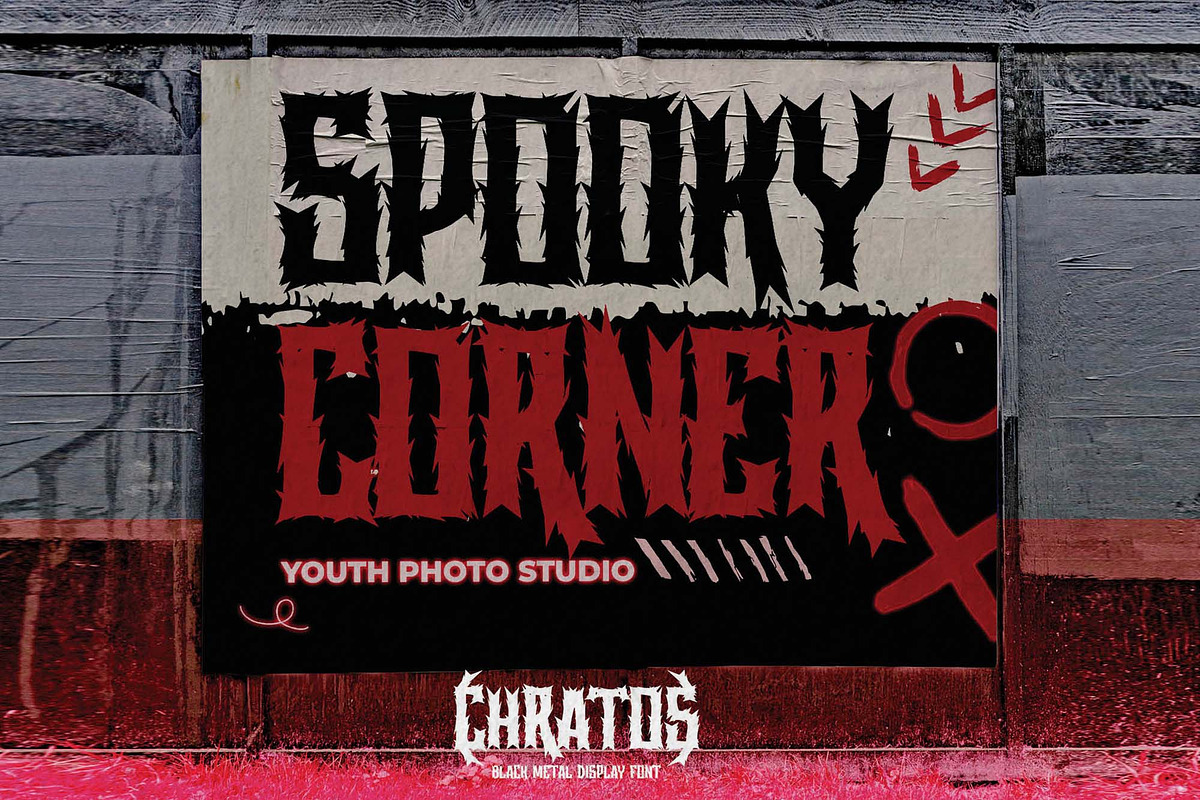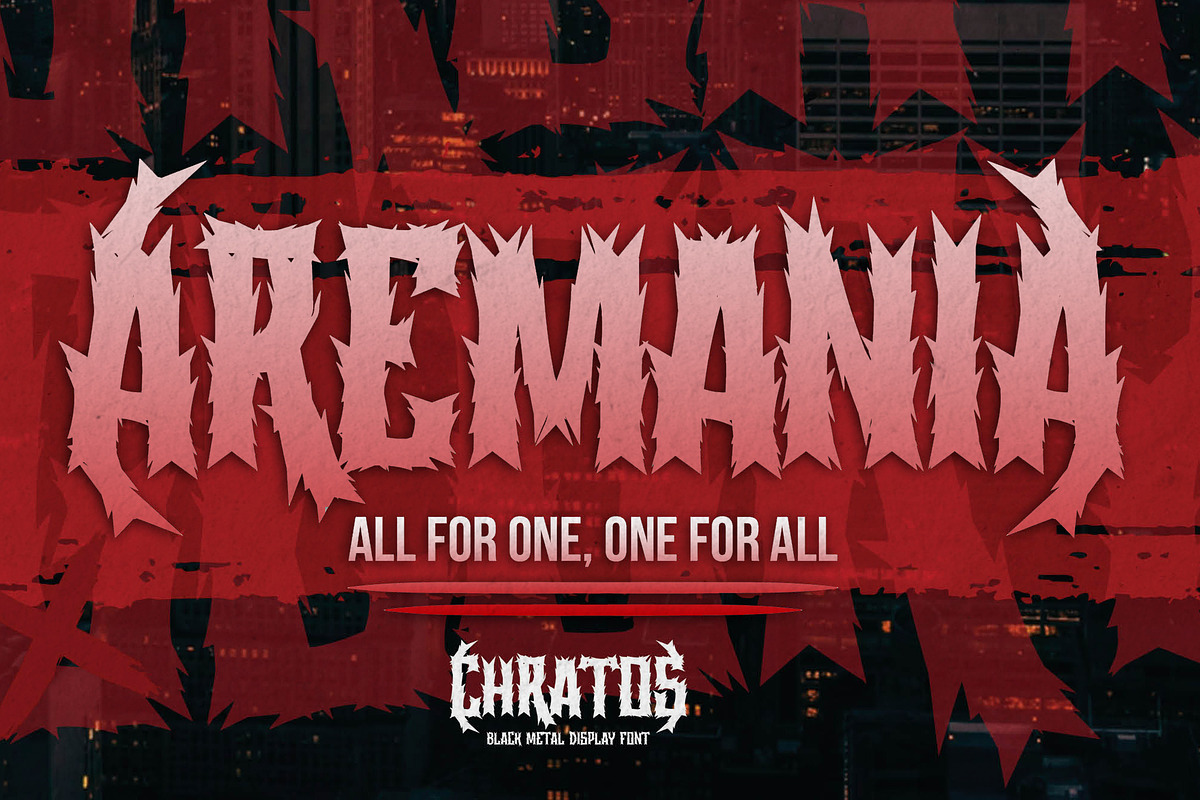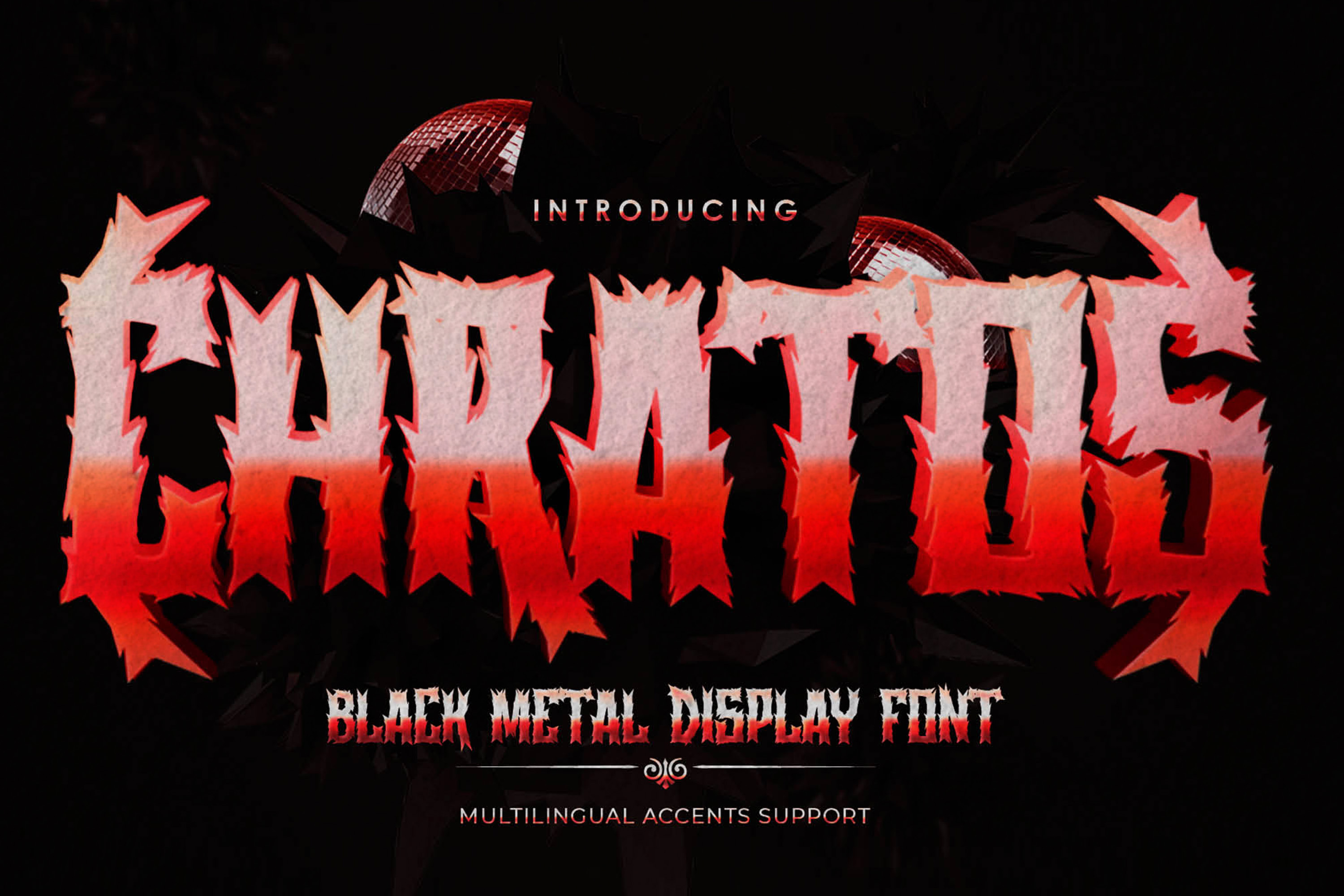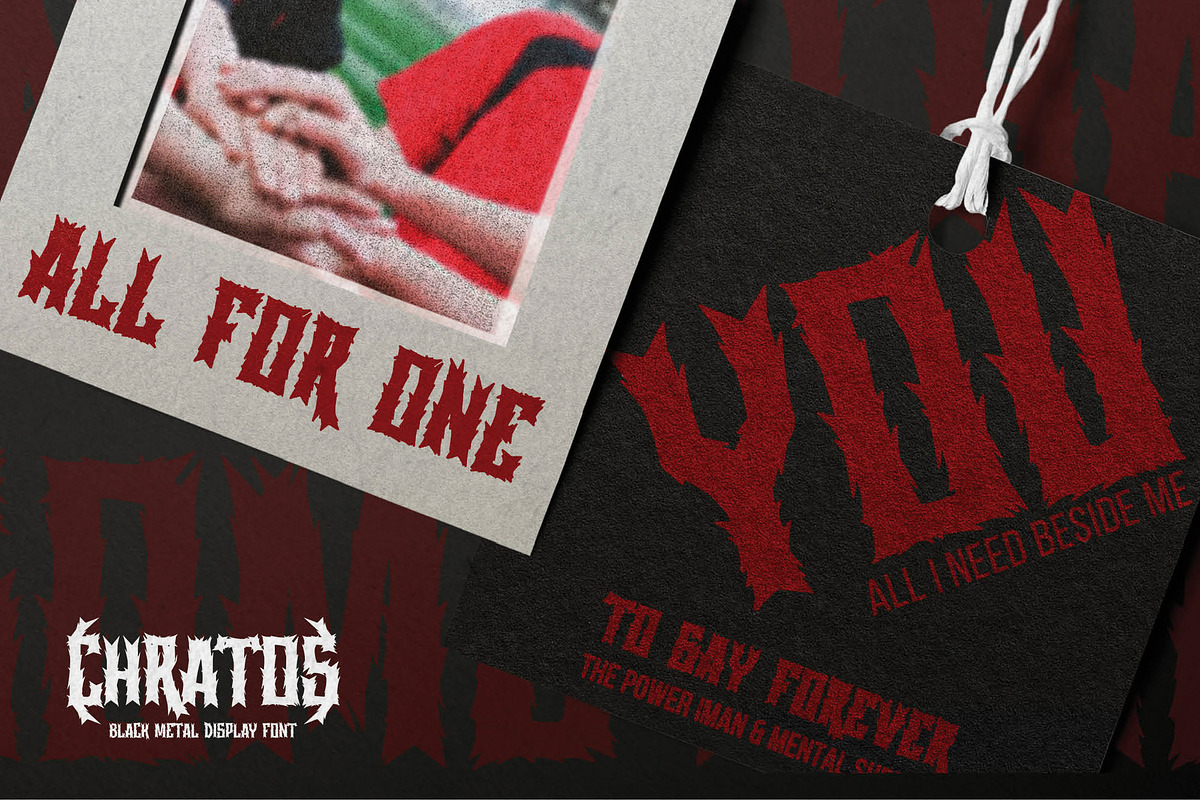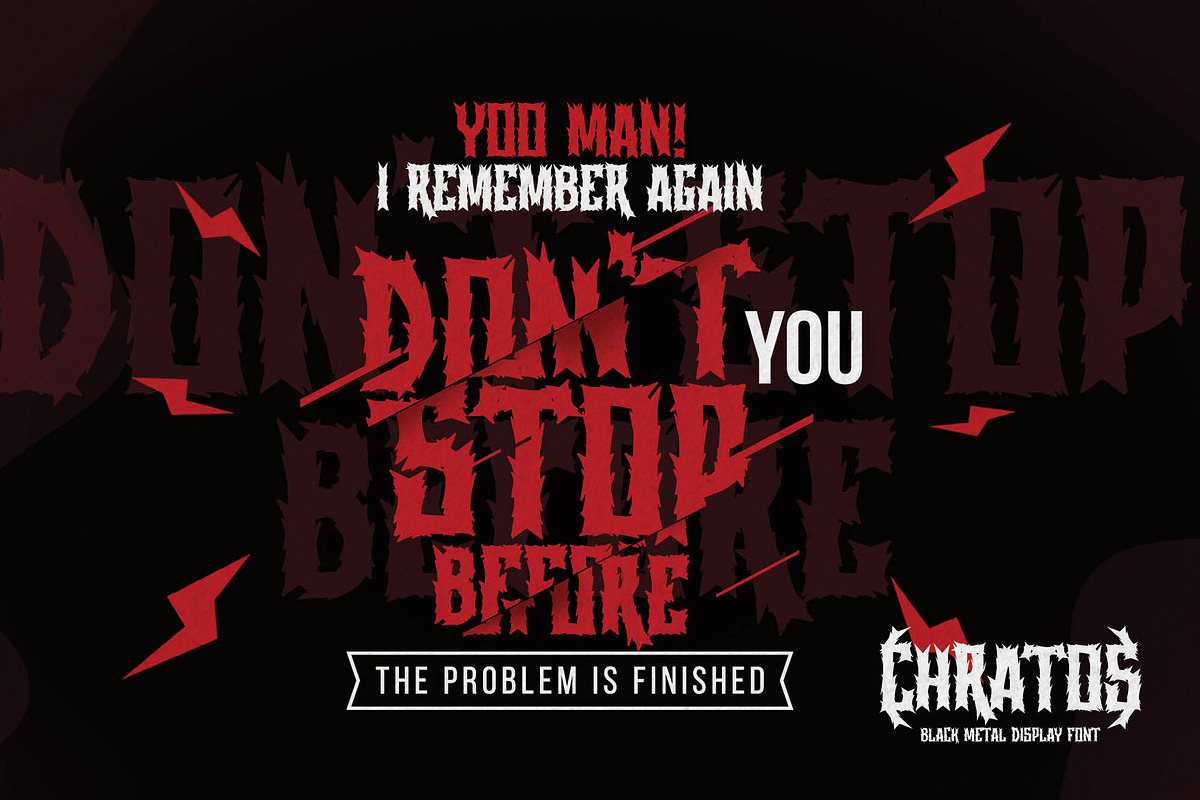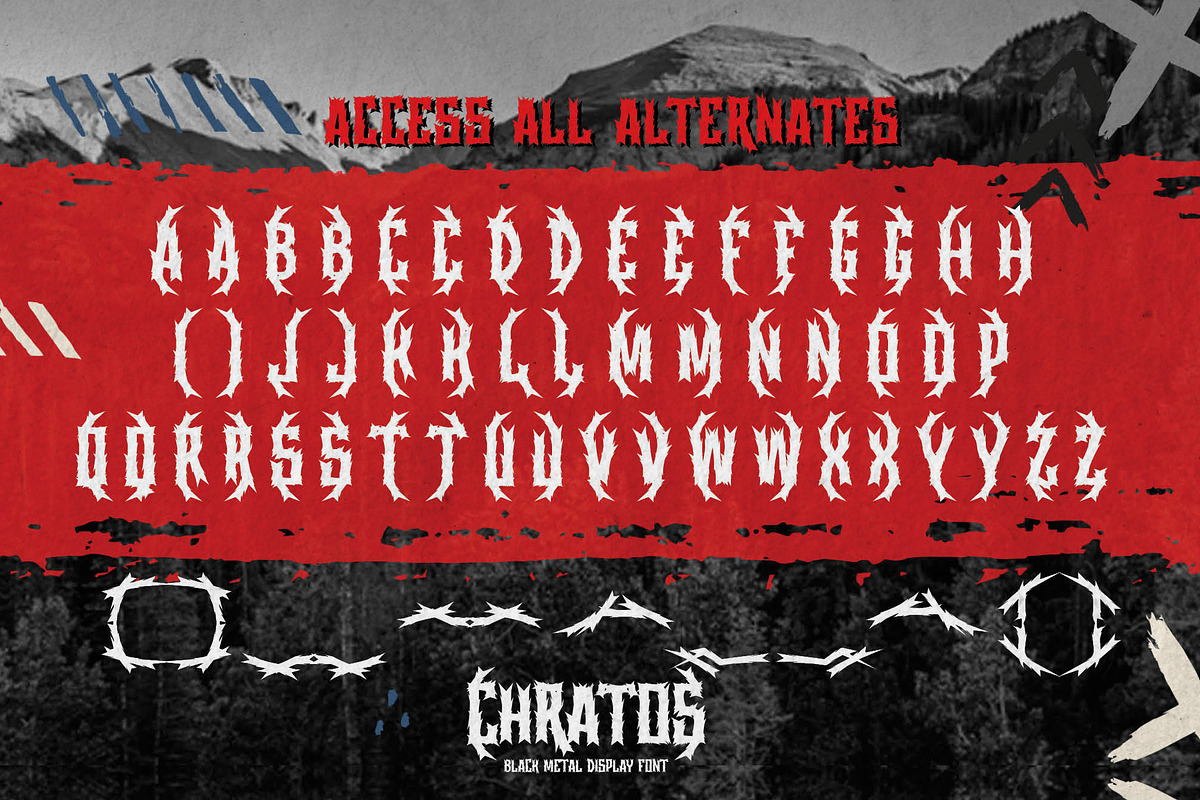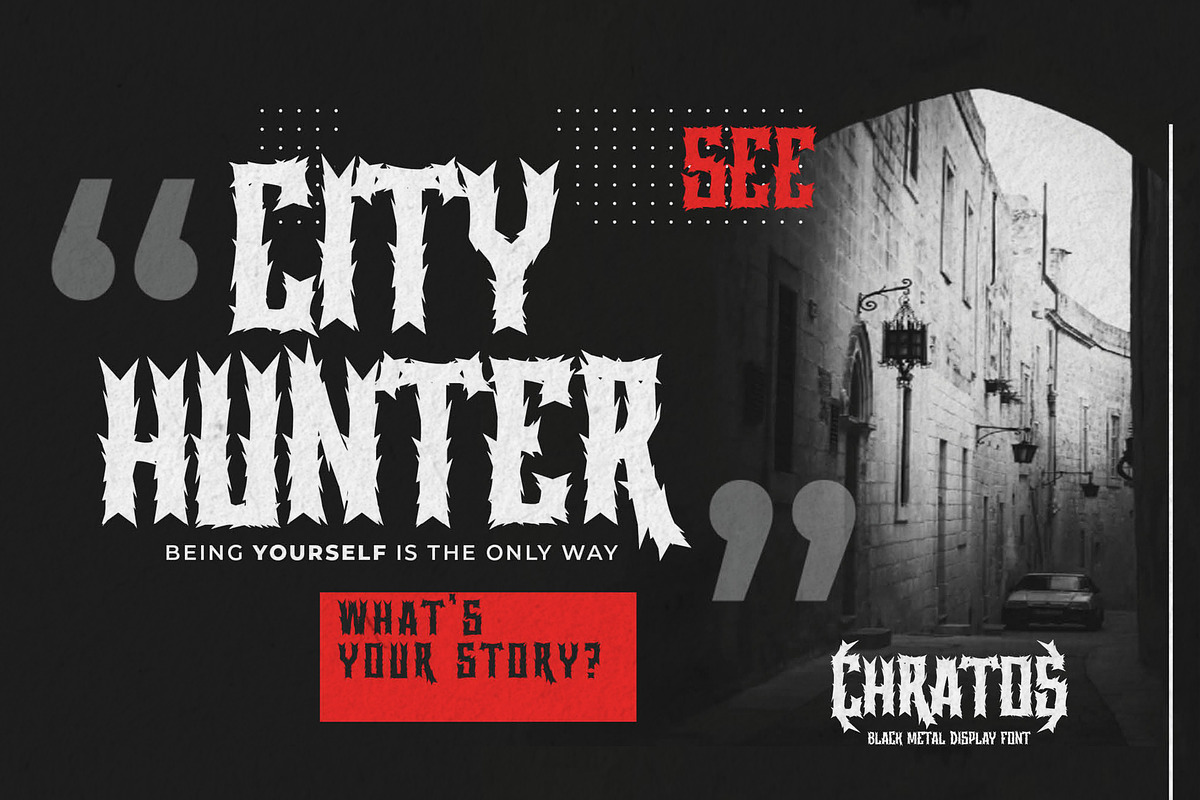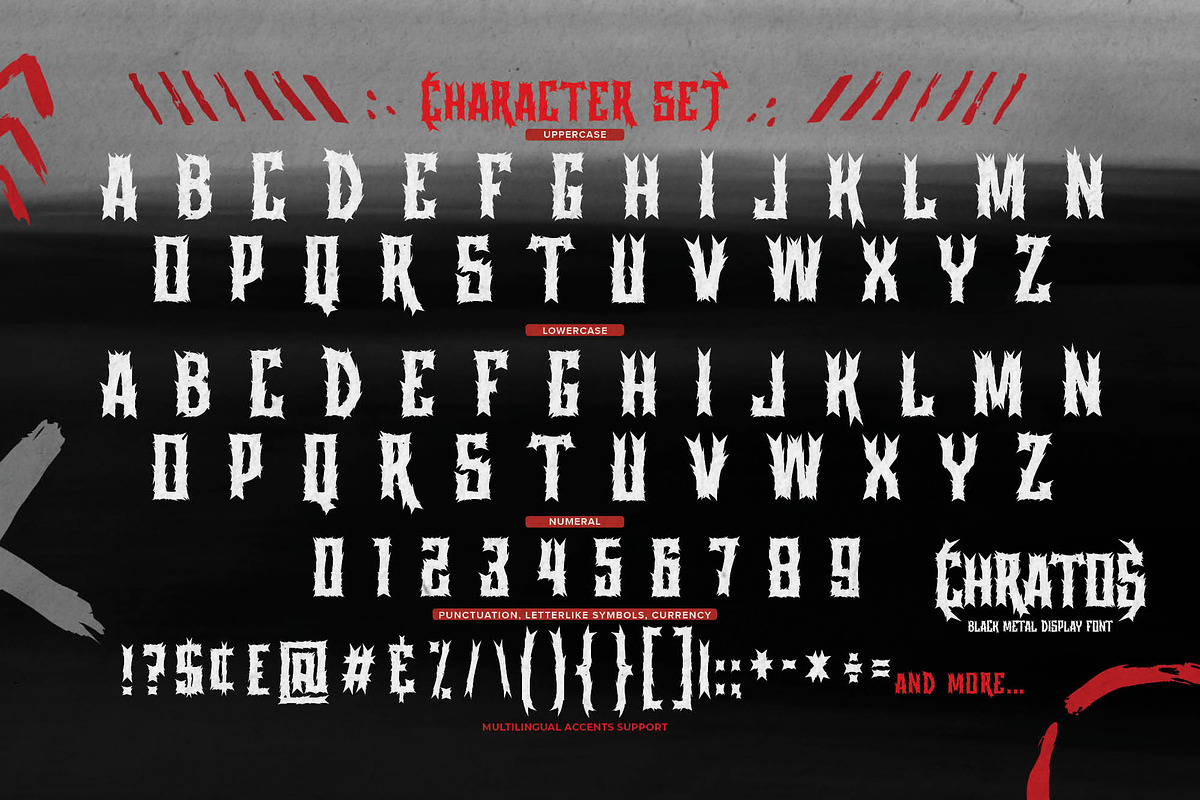
CHRATOS - Black Metal Display Font
Introducing of our new product CHRATOS is a Black Metal Display Font is handmade Rough Brush Font with Alternates and Multilanguage support.
Can make it easier to convey the message in your design. use for awesome display, labeling, movie sceen, poster, movie title,quotes, posters, DIY projects, branding, packaging, greeting cards, websites, photography overlays, signs, window art, tags and so much more!
Best for project that need horror vibes , horror poster, childrenbook, cartoon, comic etc
This font CHRATOS is PUA encoded which means you can access all of alternate glyphs and ligatures glyphs.
- Alternates glyphs